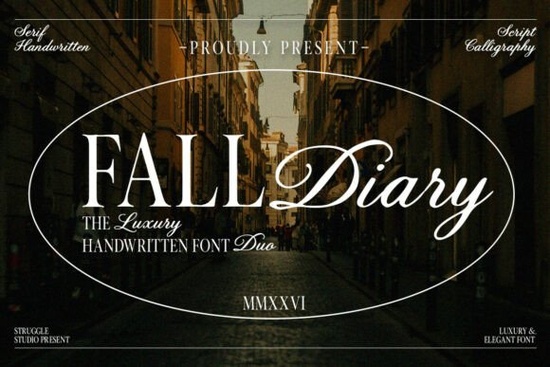
If you're looking for a font that captures the cozy elegance of autumn while still feeling fresh and modern, the Fall Diary Font might be exactly what your next project needs. Designed by Struggle Studio, this typeface isn’t just one font it’s a thoughtfully paired duo that blends a refined handwritten serif with a flowing calligraphy script. Together, they create a balanced look that works beautifully for everything from wedding stationery to boutique branding.
Why does Fall Diary work so well for seasonal and luxury designs?
The magic of Fall Diary lies in its contrast. The serif style carries structure and clarity ideal for headings or short blocks of text while the script adds warmth and personality with its gentle curves and subtle flourishes. This combination mirrors the mood of fall itself: grounded yet expressive, classic but not outdated.
Designers often struggle to find fonts that feel both timeless and current. Fall Diary solves that by drawing on vintage inspiration without leaning too heavily into retro clichés. Whether you’re designing a premium product label, an invitation suite, or social media graphics for a small business, this font duo adds sophistication without overwhelming your layout.
What kinds of projects is it best suited for?
Fall Diary shines in contexts where tone and texture matter:
- Wedding and event stationery – Think place cards, menus, and save-the-dates with a soft, artisanal feel.
- Boutique branding – Perfect for logos, packaging, or tags for handmade goods, candles, or skincare lines.
- Editorial layouts – Adds character to magazine spreads, blog headers, or digital lookbooks.
- Social content – Works well in Instagram quotes, Pinterest pins, or seasonal promotions.
Because it includes both print- and screen-friendly styles, you don’t have to worry about legibility when switching between mediums. The serif keeps things readable, while the script brings visual interest without sacrificing professionalism.
How does it compare to other script fonts on Creative Fabrica?
Fall Diary stands apart by offering duality in a single package. Instead of needing to pair fonts yourself a process that can take time and trial you get two complementary styles designed to work together from the start. That makes it especially useful if you’re short on design experience or working under tight deadlines.
Can beginners use this font effectively?
Absolutely. Even if you’re new to typography, Fall Diary’s built-in harmony reduces guesswork. Use the serif for body text or subheadings and the script for titles or accents. Stick to one or two font sizes per layout, and avoid overusing the script in long paragraphs its strength is in short, impactful phrases.
Most design tools (like Canva, Adobe Express, or Affinity) support OpenType features, so you’ll also get access to alternate characters and ligatures that add extra polish with minimal effort.
Also, consider pairing it with neutral sans-serifs (like Montserrat or Lato) if you need a third typeface for longer copy. This keeps the focus on Fall Diary’s elegance without creating visual clutter.